Introduction to Example of TP Font Usage: “Book Titles Part 1”
Type Project font will be introduced based on examples of usage in each medium, including packages, books, websites, and advertisements.
I would like to introduce books in which *AXIS Round 100 Condense is used altogether.
*Including some adjusted characters.
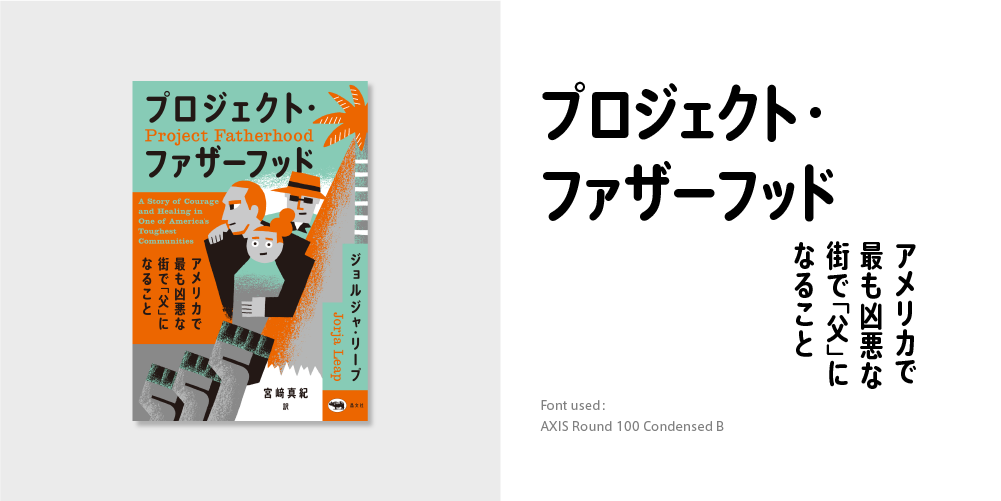
“Project Fatherhood: A Story of Courage and Healing in One of America’s Toughest Communities”
“Narrow Font Flourishes Where There is a Lot of Character Information”
Along with distinctive illustrations of the main characters, AXIS Round 100 Condense is used for the title, subtitle, name of author, etc. over the whole surface.
The narrow font utilizes space efficiently where there is a lot of character information due to the long katakana sentences and Latin written together.
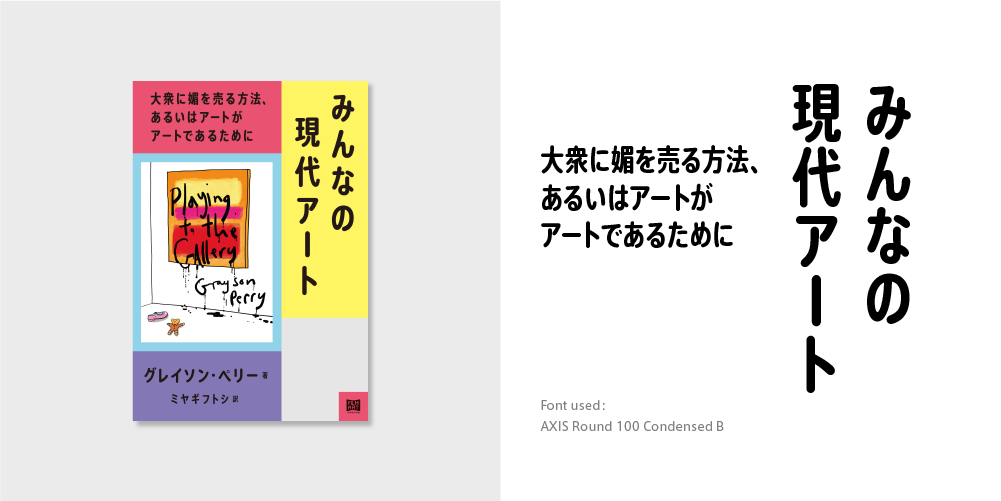
“Playing to the Gallery: Helping Contemporary Art in Its Struggle to Be Understood”
“Modern Round Gothic Wearing Familiarity and Proper Air”
Along with a popular design with yellow, red, and blue, AXIS Round 100 Condense is used for the title, subtitle, name of author, etc. over the whole surface.
Modern round gothic, left with the sharp expression of modern sans-serif, conveys familiarity and a proper air.
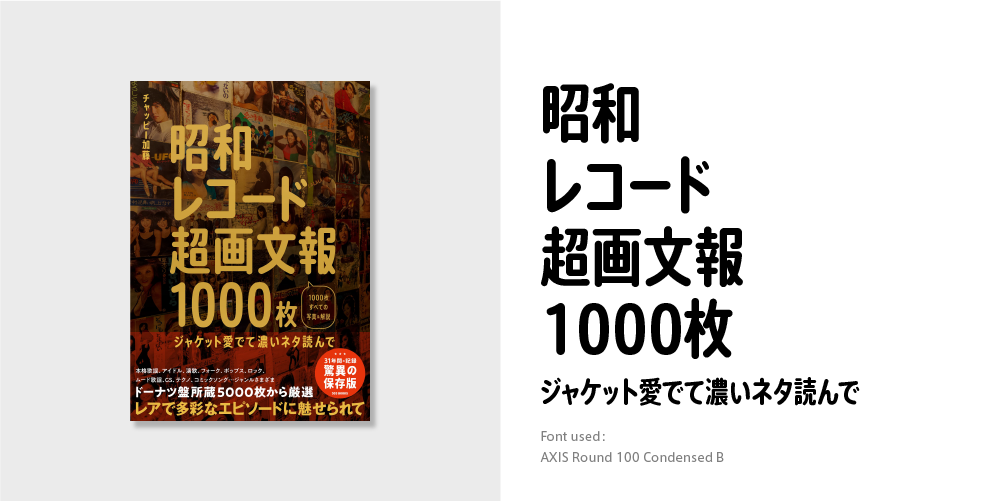
“Super Illustrated Magazine of 1,000 Records in the Showa Period: Admire the Jackets and Read the Dense News”
“Impressive Characters Convey a Comfortable Natural Rhythm”
In this illustrated reference-like book, 1,000 songs (!) in standard 45-rpm records are introduced with photographs and explanations. AXIS Round 100 Condense is used not only in the title part, but also in many parts of the book.
As the character information that tends to increase is settled neatly and reasonably, you can go on reading this book feeling a comfortable natural rhythm.